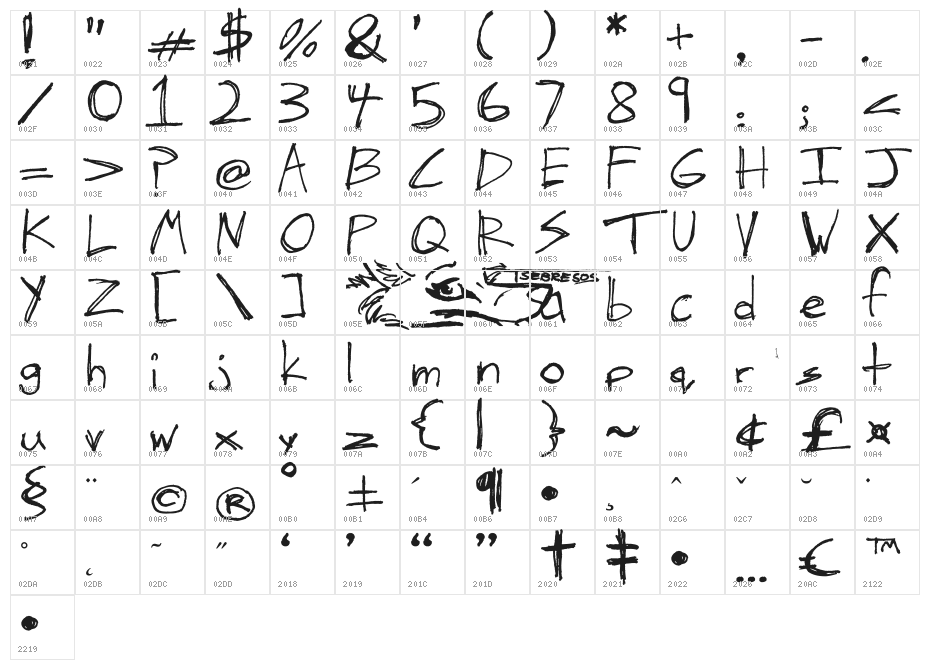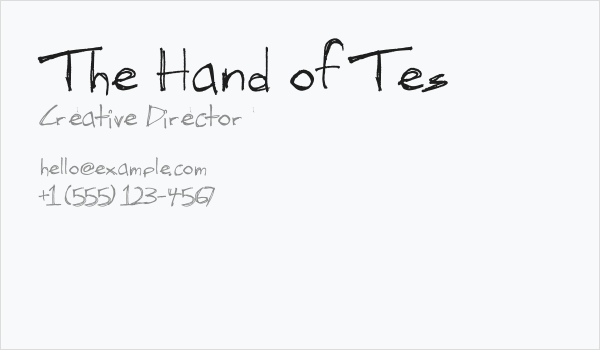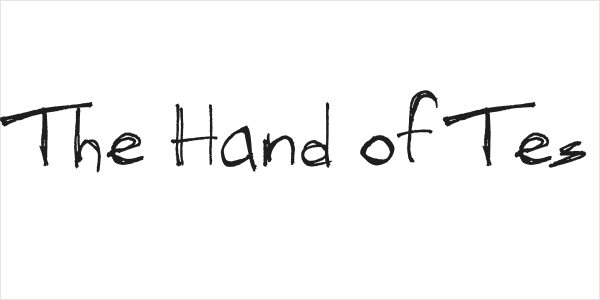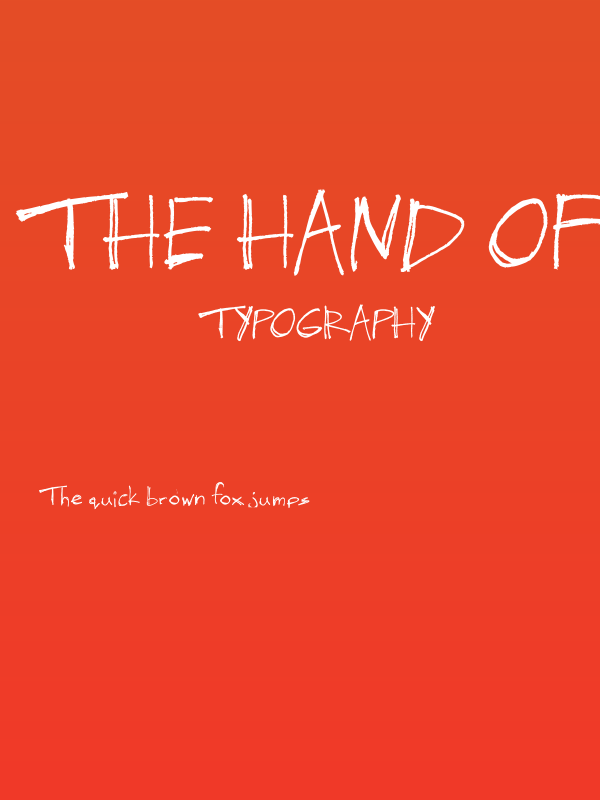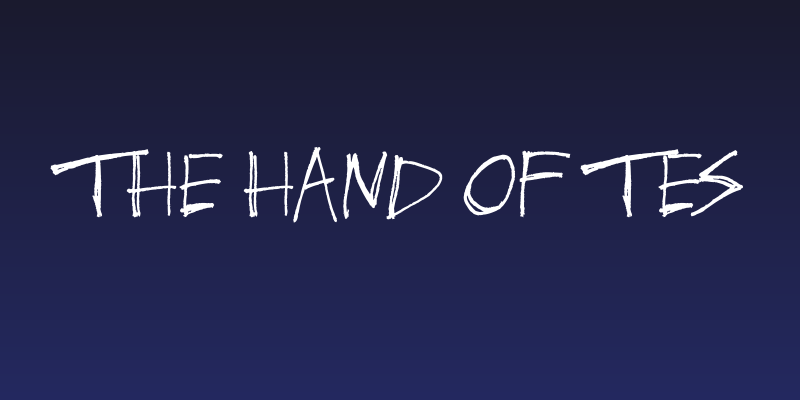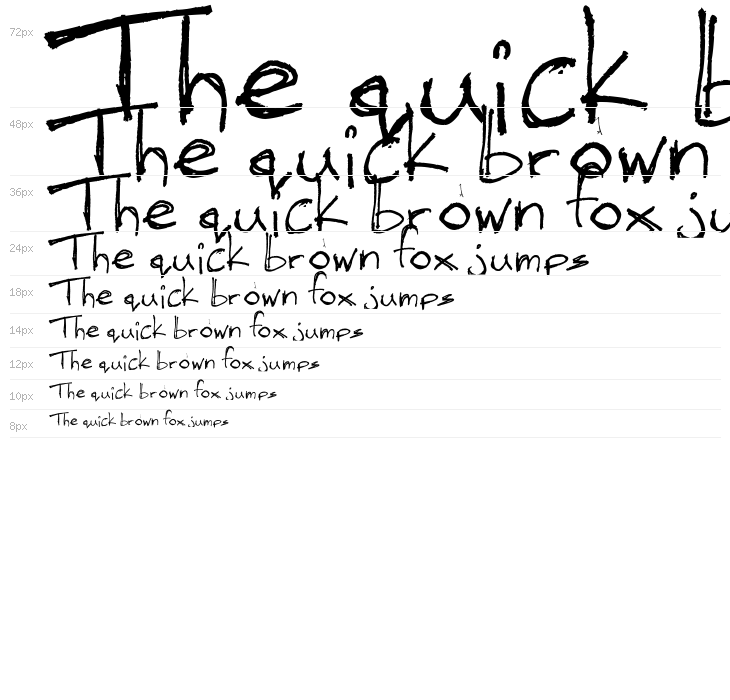
The Hand of Tes Font
The Hand of Tes Description
This font exudes a raw, hand-drawn aesthetic, characterized by its uneven strokes and organic flow. The letters appear as if they were sketched with a marker, giving them a personal and informal touch. The uppercase and lowercase letters maintain a consistent style, with a playful and slightly chaotic arrangement. Numbers and special characters follow the same hand-crafted theme, adding to the font's unique personality. The overall appearance is bold and expressive, making it ideal for projects that require a touch of individuality and creativity.
| Proposed Projects | Ideal for creative projects such as posters, album covers, and artistic branding where a personal touch is desired. |